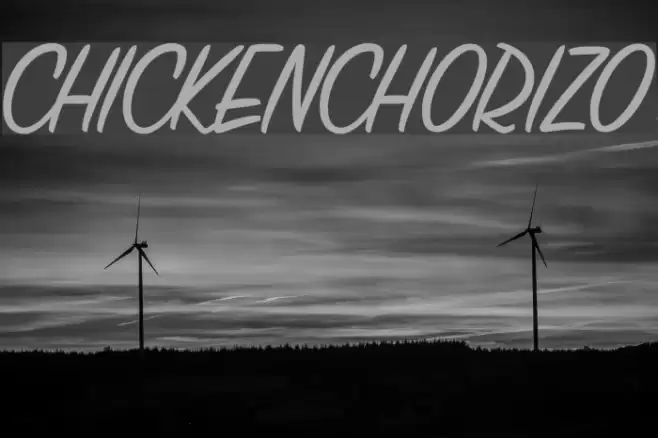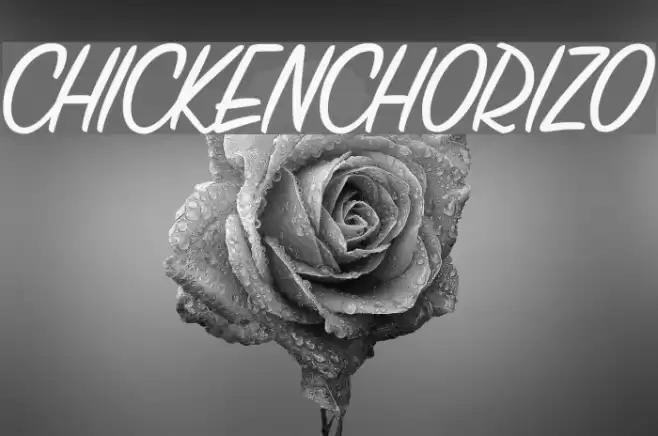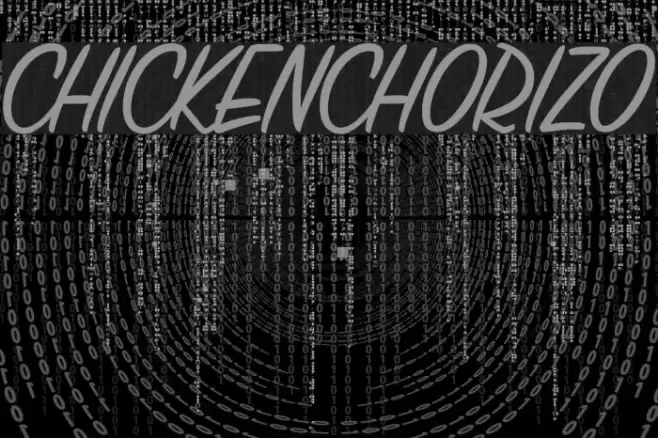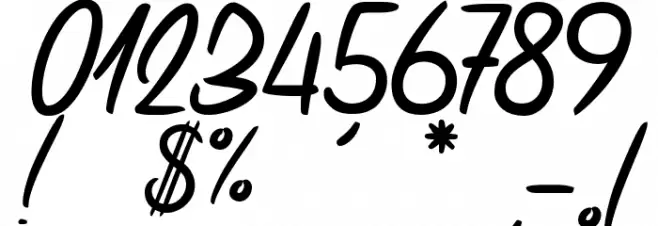
CHICKENCHORIZO Font
CHICKENCHORIZO Description
This font exhibits a dynamic and energetic style, characterized by its slanted, handwritten appearance. The letters are fluid and connected, giving a sense of movement and spontaneity. The uppercase letters are bold and slightly condensed, while the lowercase letters maintain a consistent flow. Numbers and special characters follow the same lively style, ensuring uniformity across all glyphs. The strokes are smooth with moderate contrast, adding to the legibility and aesthetic appeal. This font is ideal for projects that require a personal touch or an informal, yet stylish, presentation.
A dynamic, slanted handwritten font with fluid, connected letters from Uncategorized fonts.
- Proposed Projects: Ideal for branding, invitations, greeting cards, and social media graphics.
- Use Case: Logos, Headlines, Informal Text